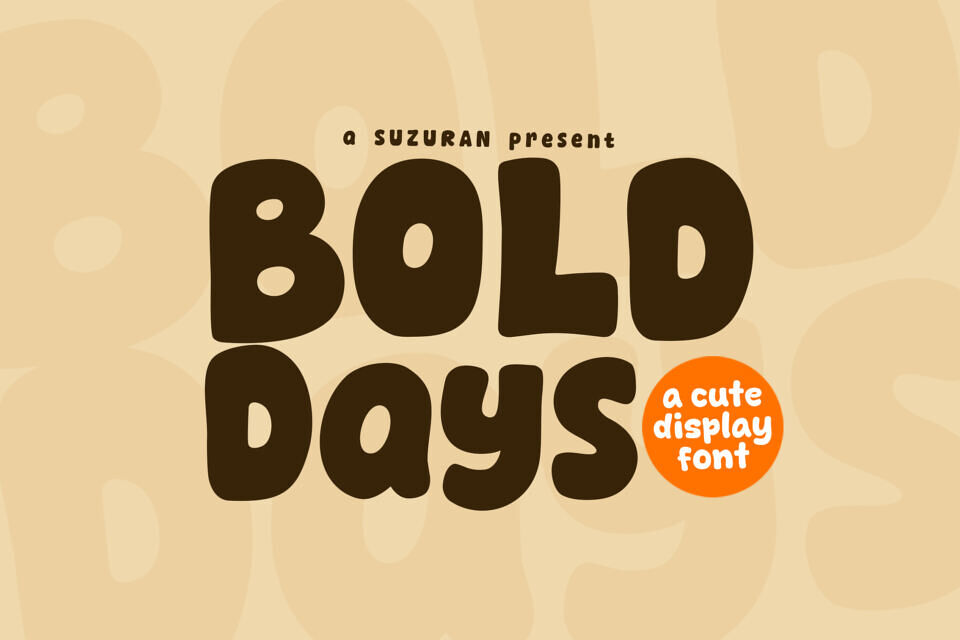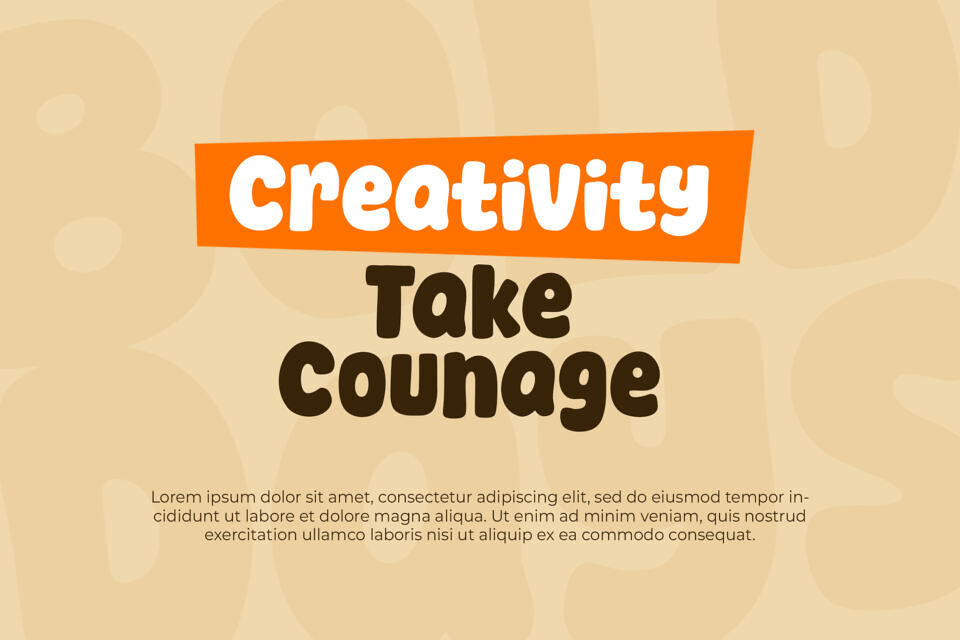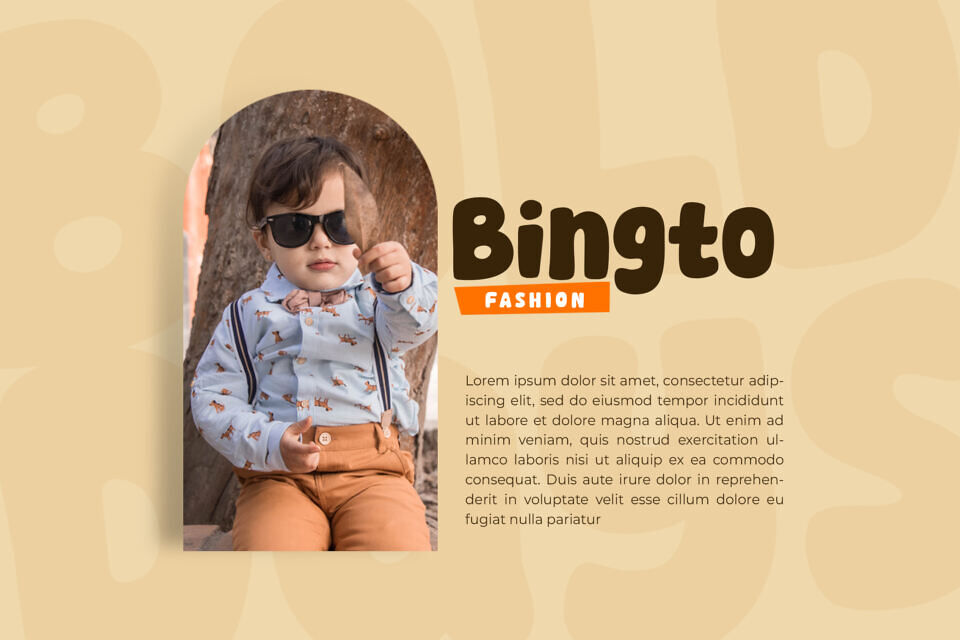
Bold Days Font
Introducing the Bold Days, a font that is very fresh, cute and bold style display font for your design project. Bold Days is perfectly suited to logo, stationery, poster, apparel, branding, wedding invitation, card, tagline, layout design, and much more!
Designed by: Suzuran Type